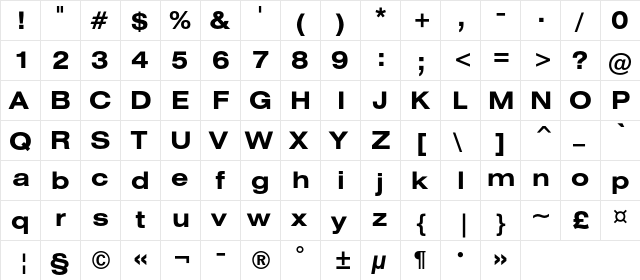
HeliosExtC Bold
Design Context for HeliosExtC Typeface
HeliosExtC offers clean, dependable letterforms without strong stylistic allegiance, making it a practical choice for designers who need flexibility. Its bold stroke weight gives it real presence on the page.